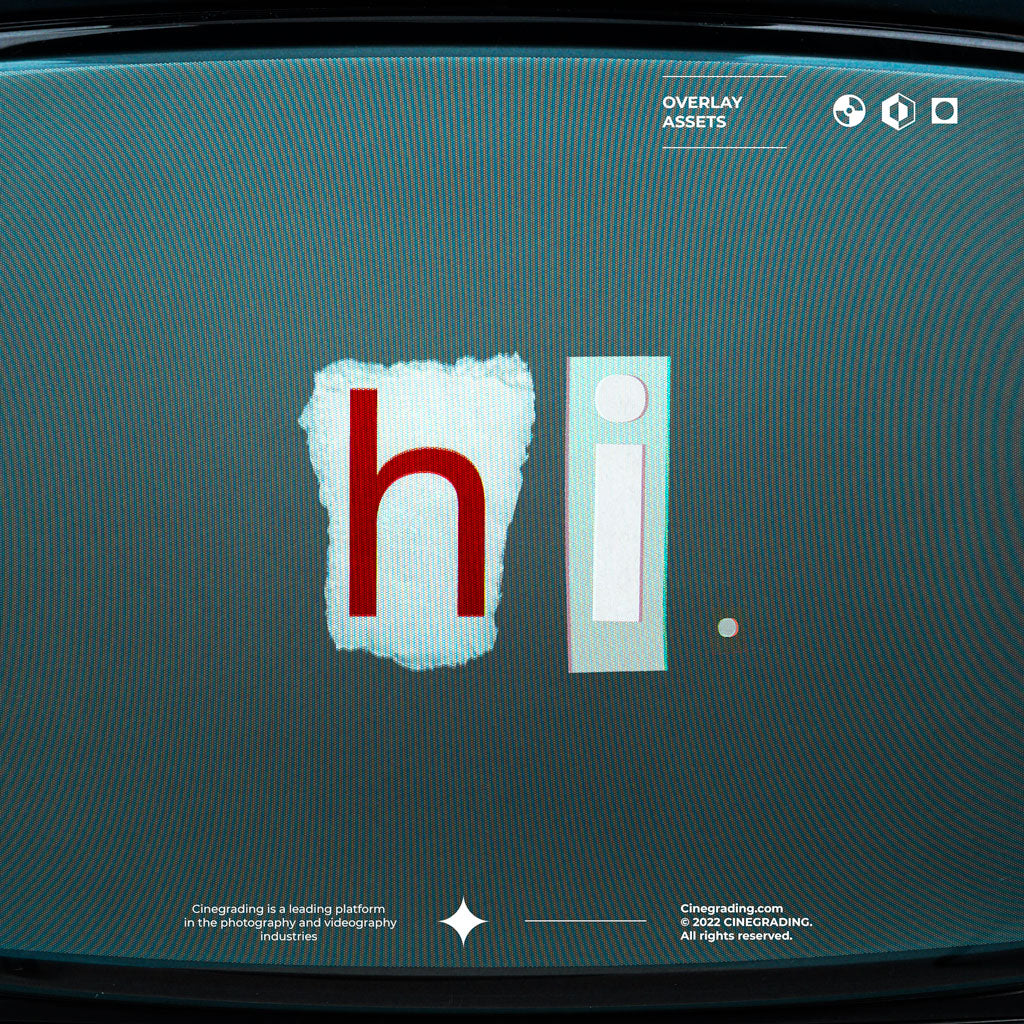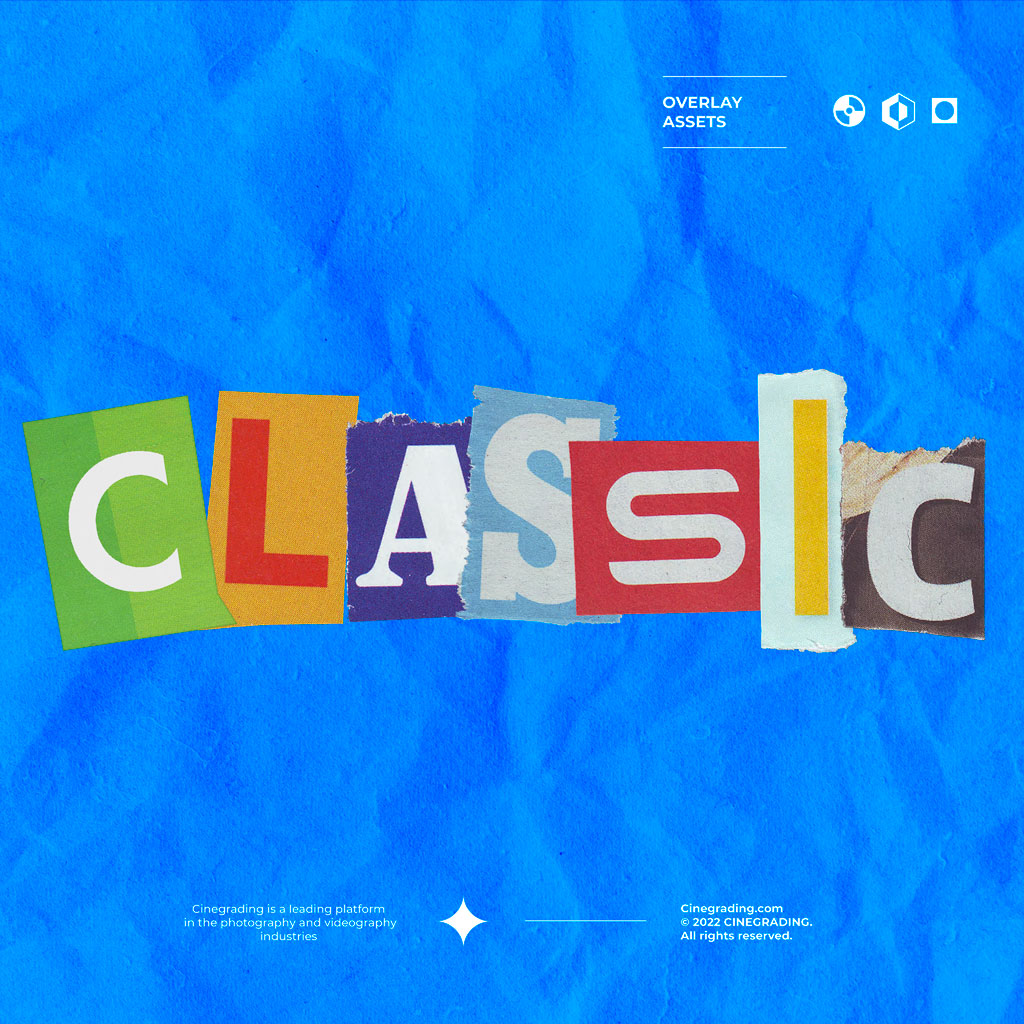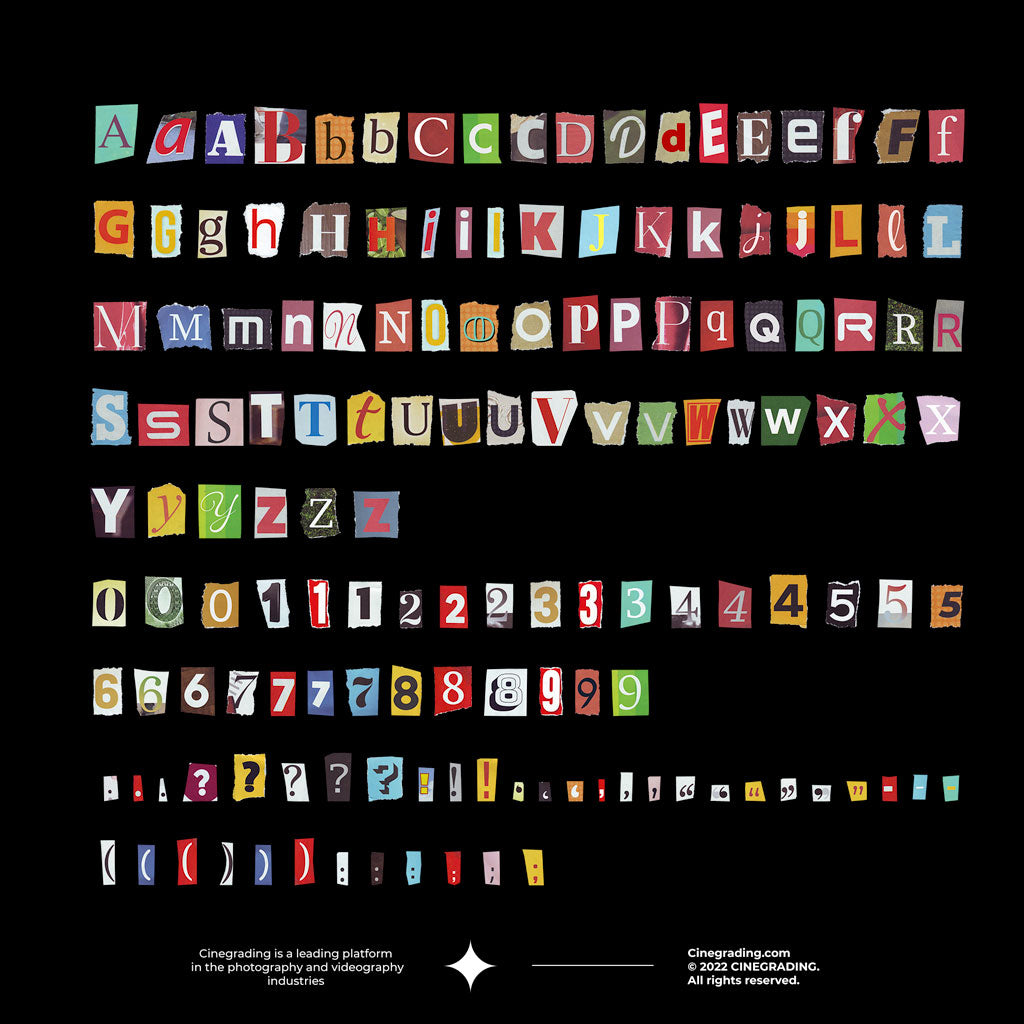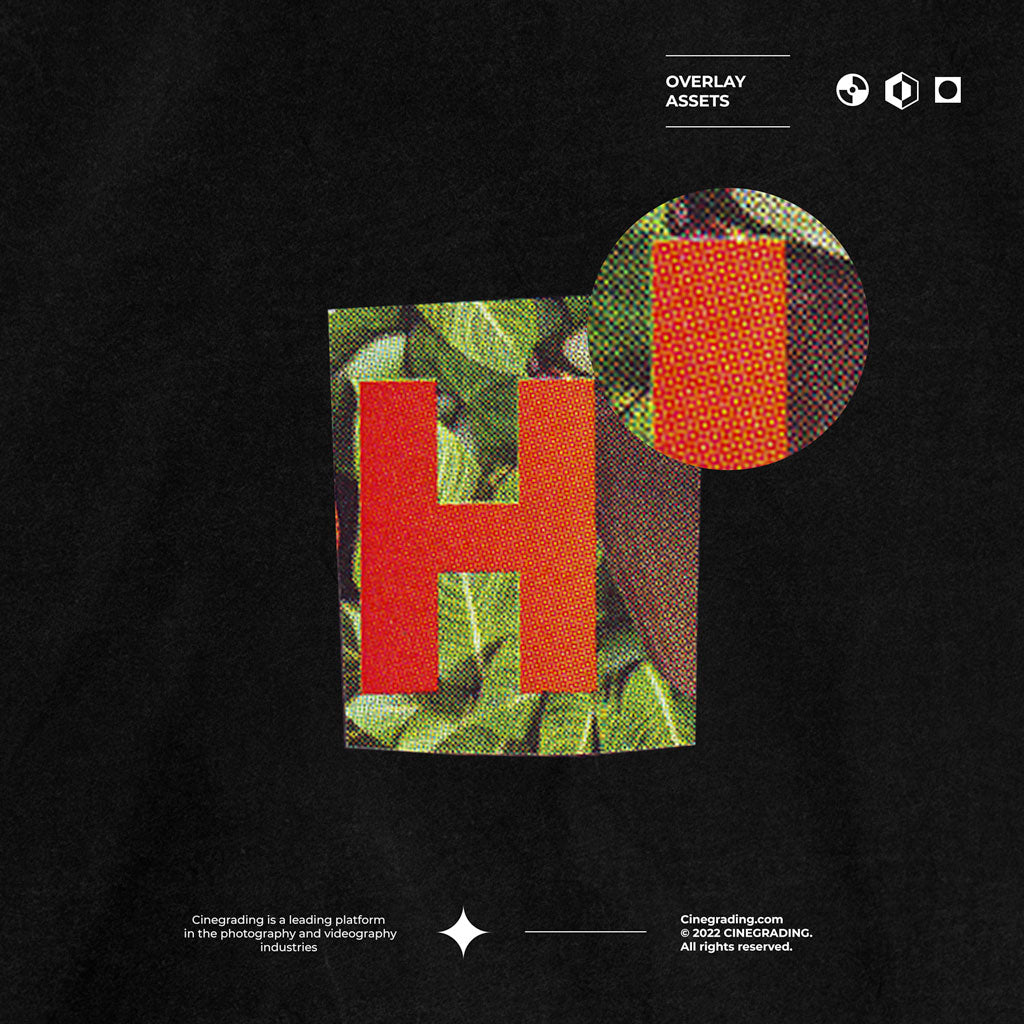
+Cine Ransoma Font
In the past, villains used printed cutout letters to compose unforgettable messages while remaining anonymous. If you want to use the same approach to create memorable content with a mysterious and cryptic feel, try Ransoma.